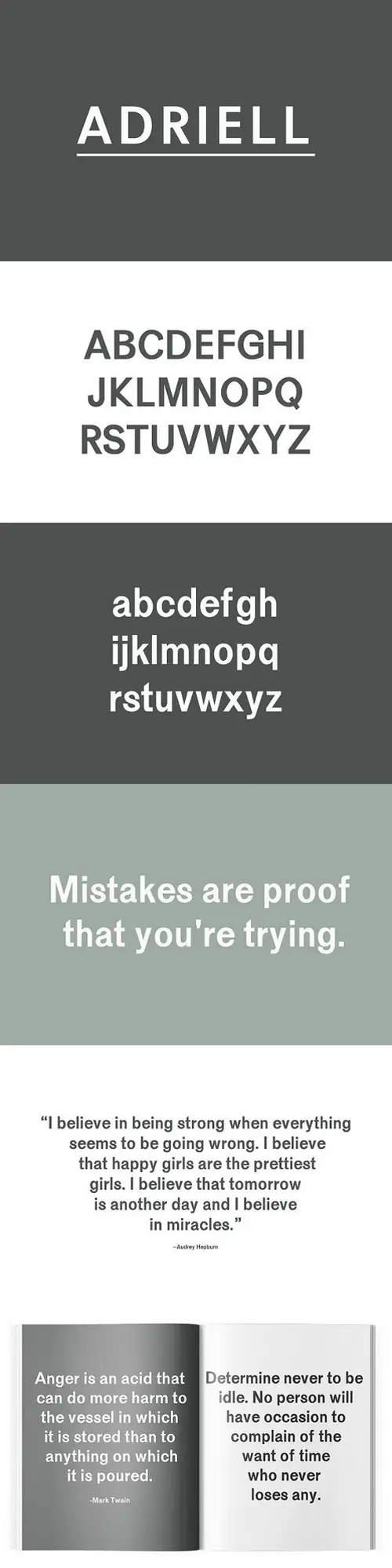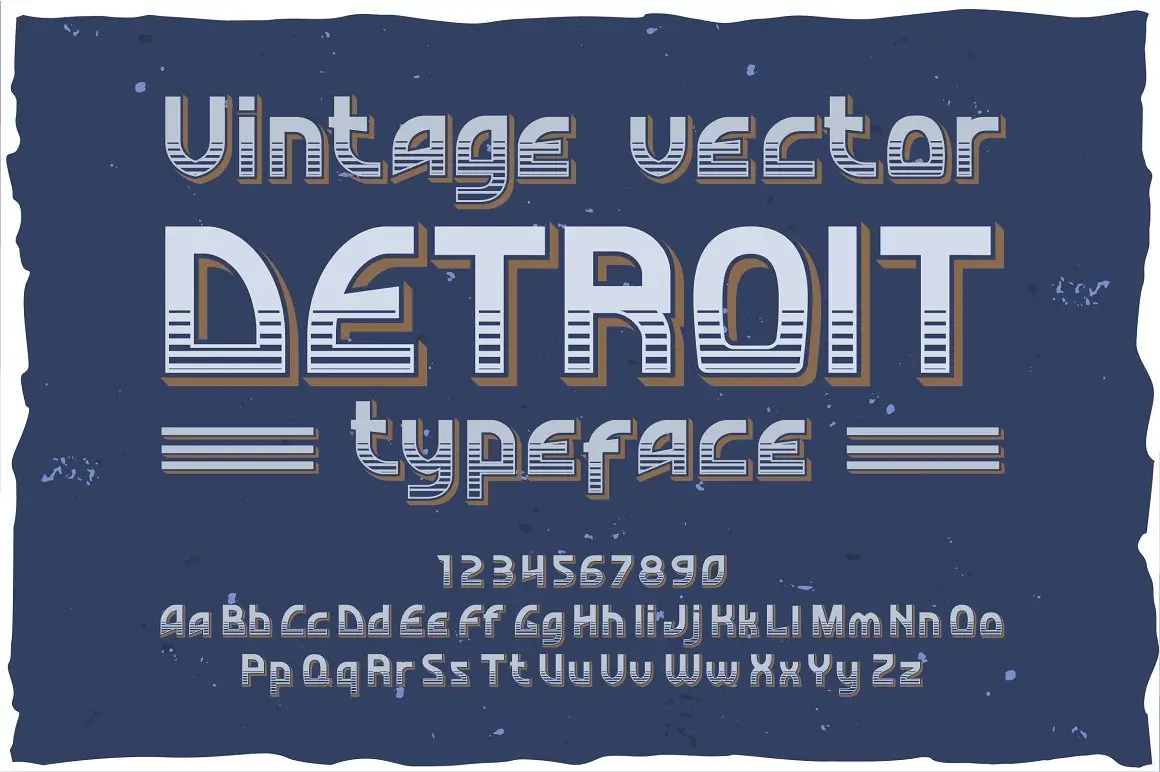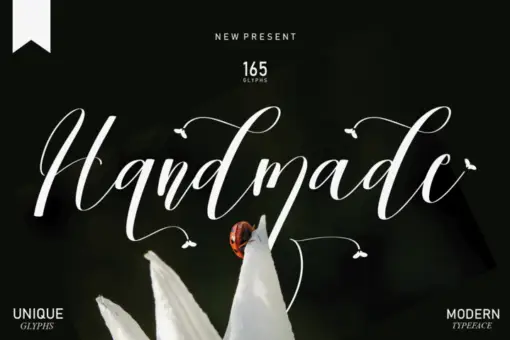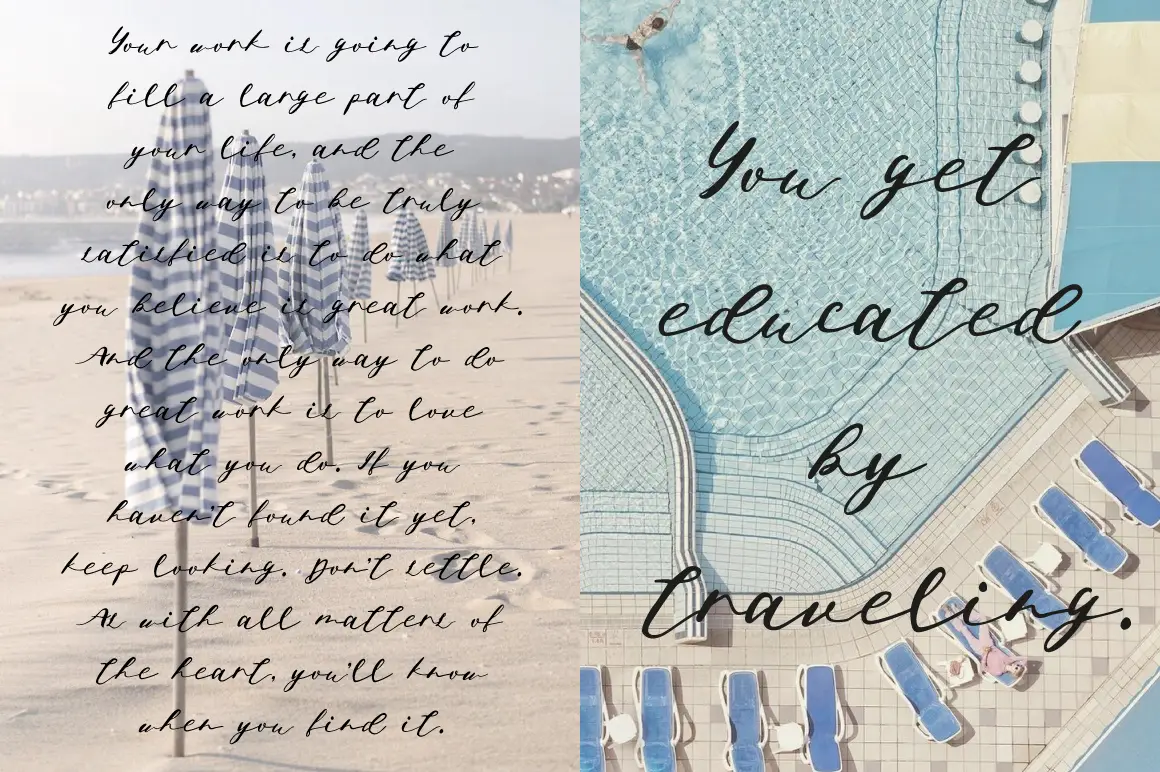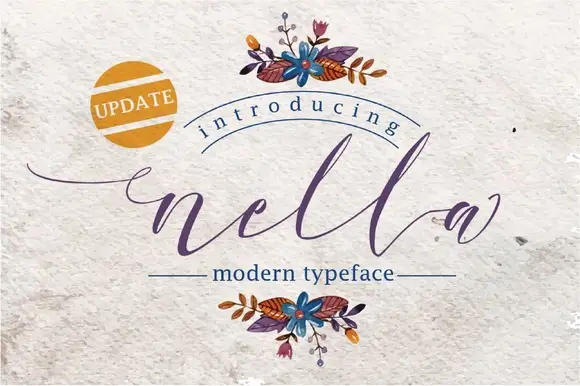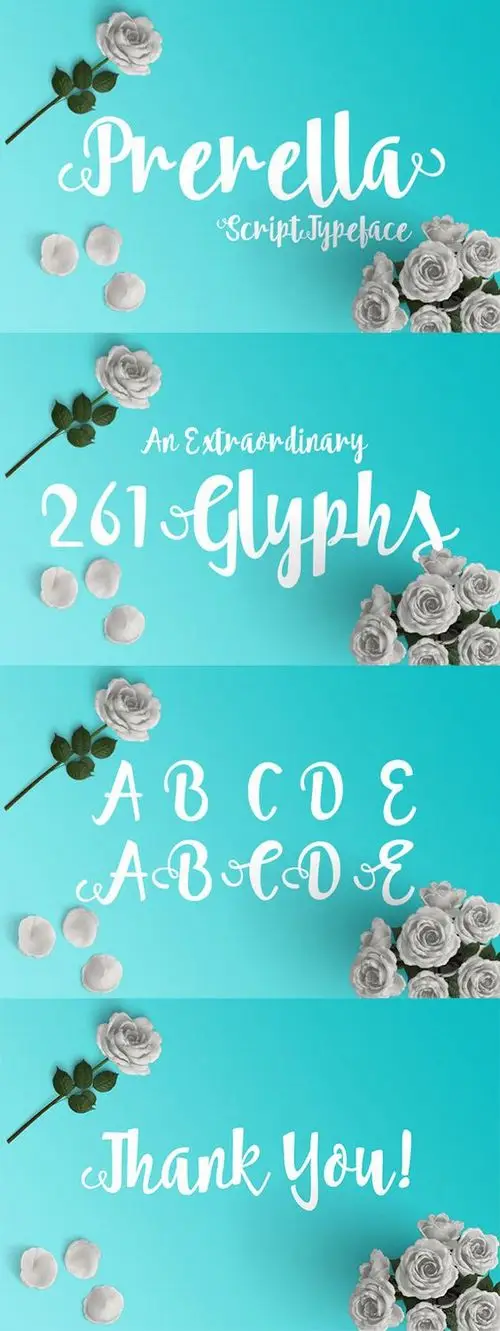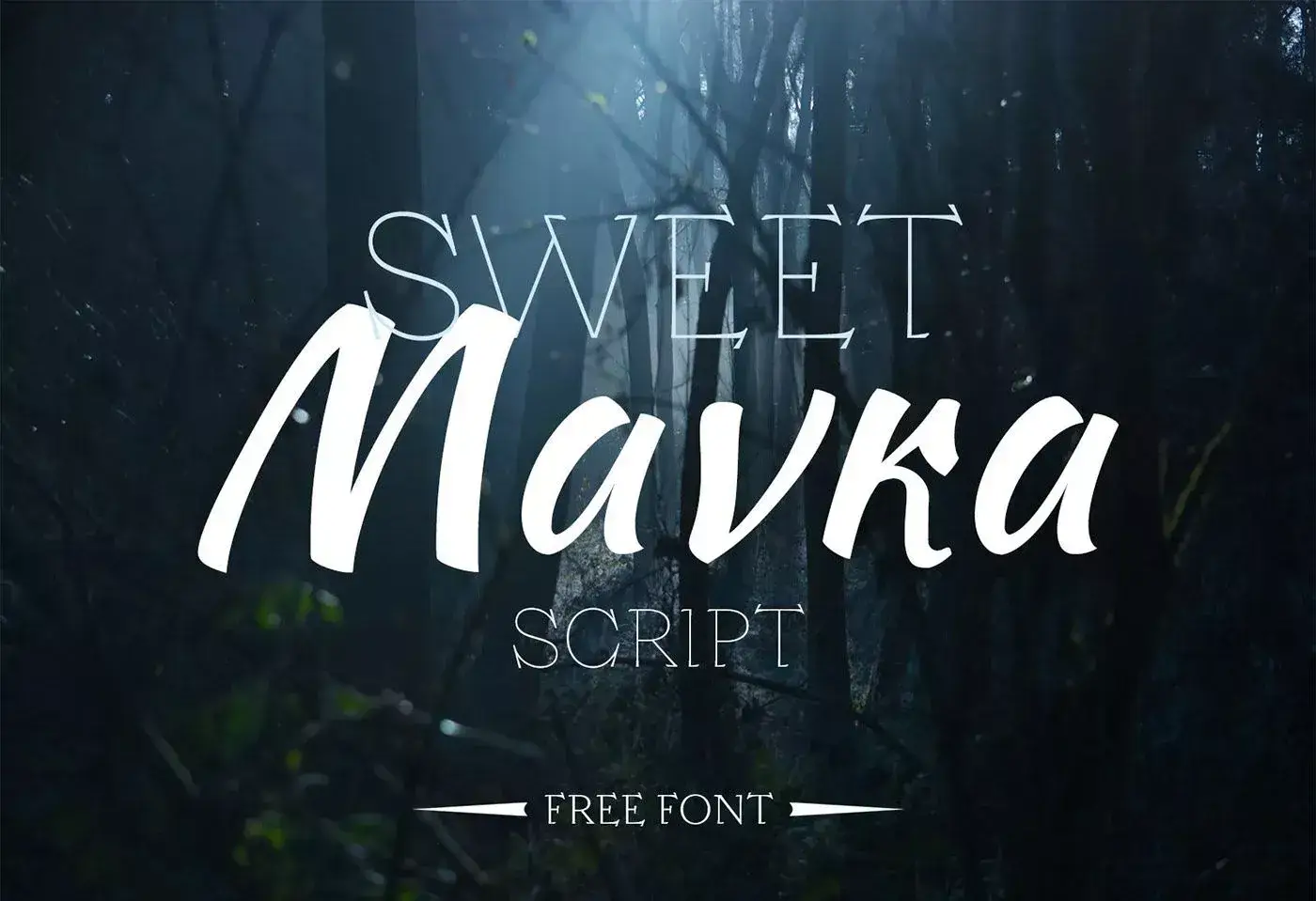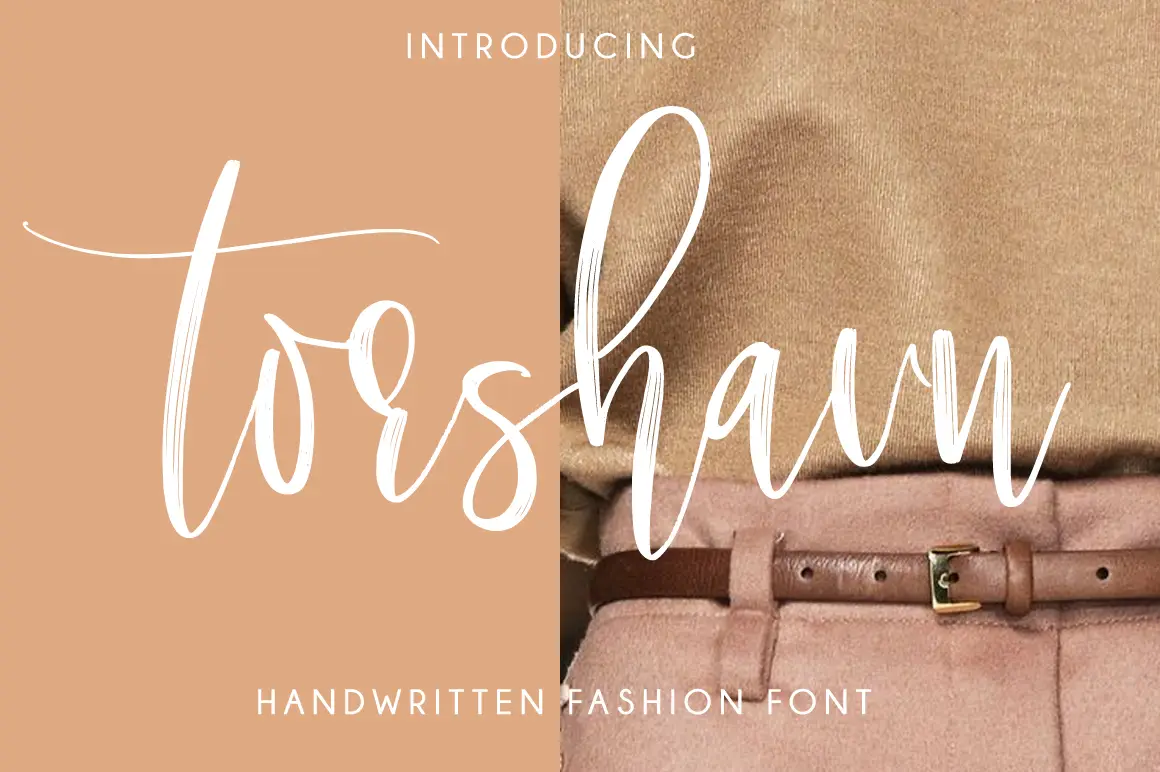
Hey there, creative soul! 🎨✨ Ready to supercharge your design toolbox? The Brushespack Collection Part 46 has just landed, and it is absolutely bursting with gorgeous fonts, elegant scripts, and unique design assets that will make your next project pop. From vintage vibes to sleek modernism, this drop has something for every artist and designer. 🚀 Let’s dive into the top 20 picks that are about to become your new favorites!
Why Use These Design Assets?
Whether you’re crafting a killer brand identity, designing a wedding invitation, or spicing up your social media graphics, the right typeface and digital assets can make all the difference. These tools save you time, elevate your professional look, and give your work that “wow” factor your clients will love. 🖌️💥
Top 20 Brushespack Picks
Adriell Sans Serif 5 Fonts Family
Meet your new favorite go-to sans serif! 🖤 Adriell comes with five distinct weights, giving you ultimate flexibility for everything from sleek logos to clean website headers. It’s modern, crisp, and absolutely foolproof for any project. ✨
Sweet Mavka Script
Oh, this script is pure poetry in motion! 🌸 Sweet Mavka combines fluid strokes with playful curves, making it perfect for elegant wedding invites, chic branding, or any project that needs a touch of romance. 💌
Commuter-Modern Serif Font
Sophistication meets versatility! 🎩 Commuter-Modern Serif boasts clean lines and a timeless aesthetic that works beautifully for magazines, book covers, and high-end branding. It’s the perfect blend of classic and contemporary. 📖
Cleo Folk By Arif Rijal
Cleo Folk is an absolute gem for anyone who loves a bit of personality! 🌿 Designed by Arif Rijal, this typeface blends folk-inspired charm with elegant letterforms. It’s perfect for boho brands, event posters, and artistic projects. 🎶
Cognac Font For Label
Raise a glass to this beauty! 🥃 Cognac is crafted specifically for labels and branding, featuring elegant serif curves that ooze luxury. Whether it’s for wine, spirits, or handmade goods, this font adds instant sophistication. 🏷️
Behooved By Putracetol Studio
Get ready to level up your design game! 🚀 Behooved is a high-quality digital asset packed with intricate, customizable elements. It’s ideal for branding kits, digital collages, and unique illustrations. Let your creativity run wild! 🎨
St Sign By Anastasia Pogorelova
Add a dash of elegance to your designs with St Sign! ✨ This digital asset from Anastasia Pogorelova is incredibly versatile, perfect for branding, marketing materials, and even personal projects. Easy to customize and a joy to use! 💖
Gaia Display
Gaia Display is here to steal the show! 🌍 With multiple weights and special characters, this stylish display font is ideal for bold headlines, posters, and any project needing a modern, artistic edge. It’s stunning! 🌟
Detroit Otf Vintage Label Font
Rev up your vintage vibes with the Detroit OTF Font! 🕰️ This typeface captures the nostalgic spirit of classic labels with its unique, retro character shapes. Perfect for packaging, logos, and throwback designs. 📦
Mandarina
Fresh, modern, and oh-so-juicy! 🍊 Mandarina is a versatile design asset featuring high-resolution graphics that are super easy to customize. It’s perfect for sprucing up your social media posts, flyers, or digital art. 🖥️
Gnome
Bring a little magic to your designs! 🧙♂️ The Gnome asset is a collection of whimsical, high-quality illustrations featuring charming characters in various styles and poses. Ideal for children’s books, greeting cards, or playful branding. 🧚
Prerella
Prerella is the ultimate toolkit for designers on the go! 🎒 With high-quality elements and customizable templates, it’s perfect for graphic designers, marketers, and content creators who want to elevate their work fast. 💫
Rat Black Painted Typeface
Unleash your inner rebel with Rat Black Painted Typeface! 🖤 This bold, urban-inspired font features a unique painted texture that screams street art and attitude. Perfect for edgy posters, merch, and graffiti-style designs. 🎤
Heritager By Hsco
Tradition meets modern functionality! 🏛️ Heritager by Hsco offers a stunning blend of classic aesthetics with a user-friendly interface. It’s perfect for designers who want to add a touch of heritage and authenticity to their projects. 🏺
Carlshamn
Carlshamn is a treasure trove for creatives! 💎 This versatile collection offers high-quality graphics and illustrations that are fully customizable. Whether you’re a pro or a hobbyist, it’s the perfect resource to elevate your work. 🛠️
Jeniffer
Say hello to Jeniffer, the stylish asset that’s as versatile as it is beautiful! 💅 With high-resolution files and multiple formats, it’s perfect for everything from personal projects to commercial use. Clean, crisp, and ready to inspire. ✨
Torshavn
Clean, contemporary, and endlessly useful—Torshavn is a modern digital asset that’s a must-have for any designer. 🌟 With its streamlined style and multiple formats, it integrates seamlessly into branding, web design, and more. 💻